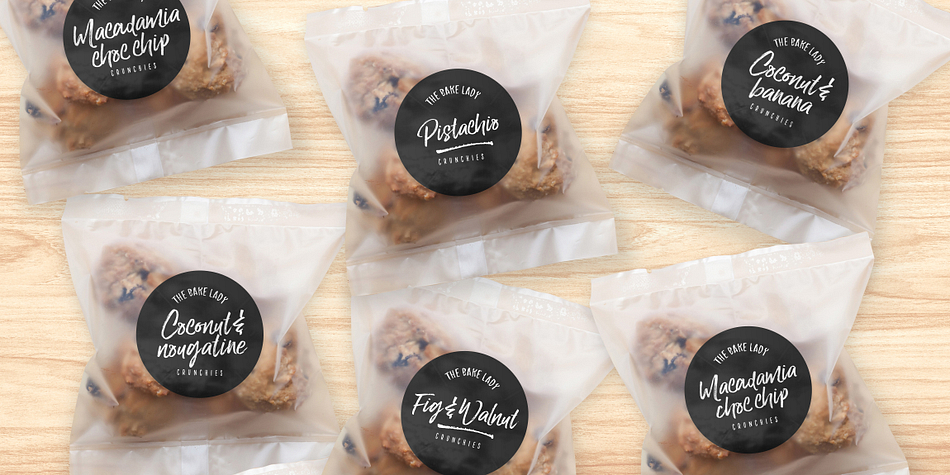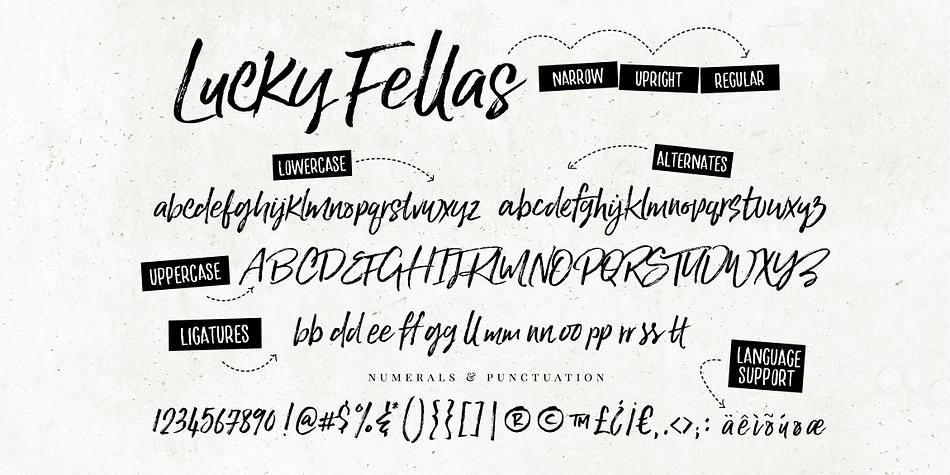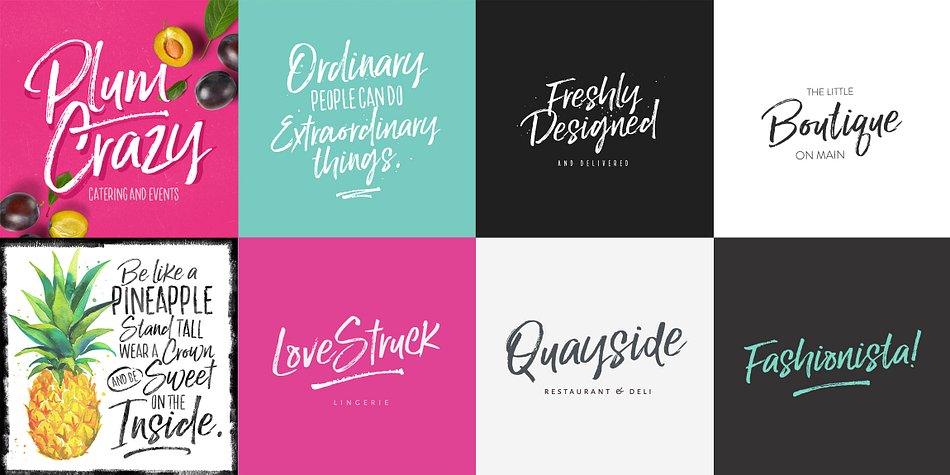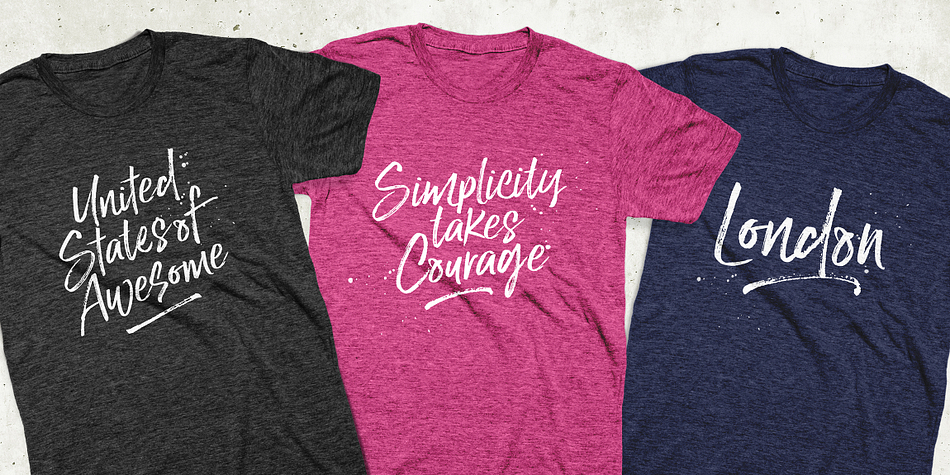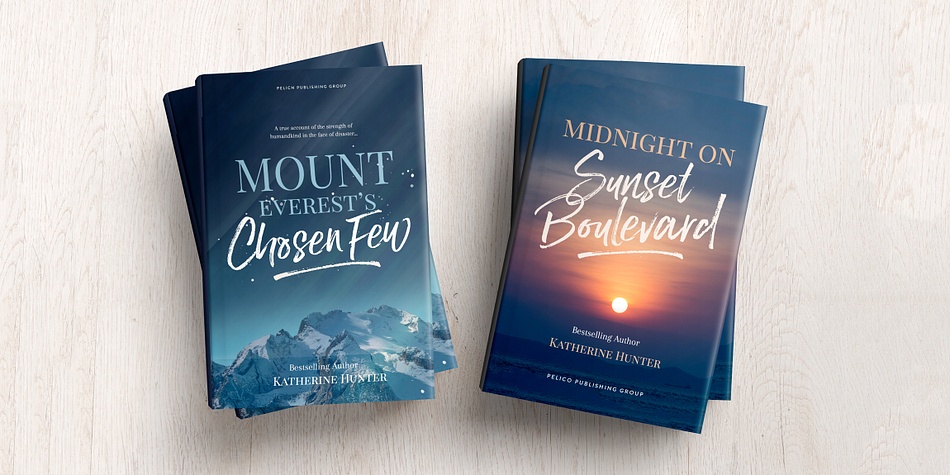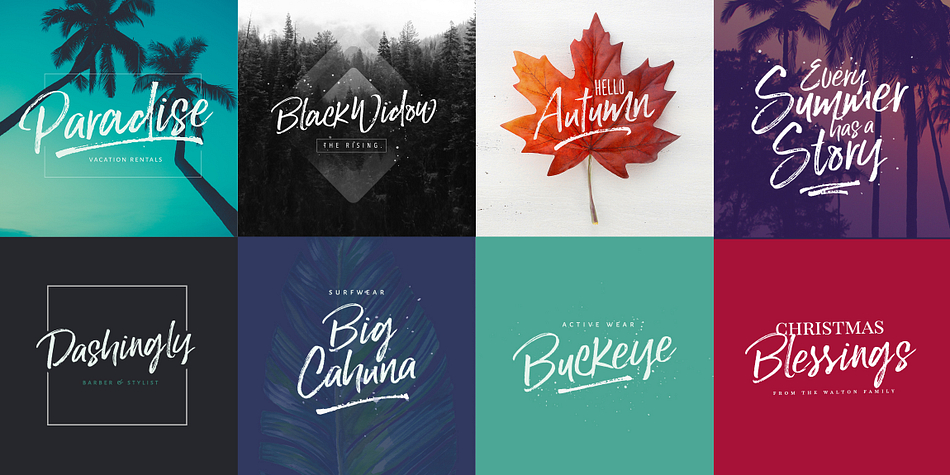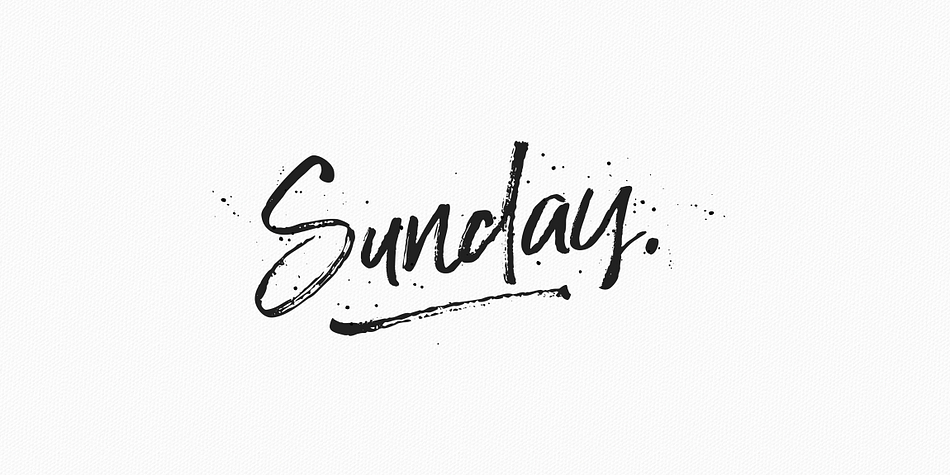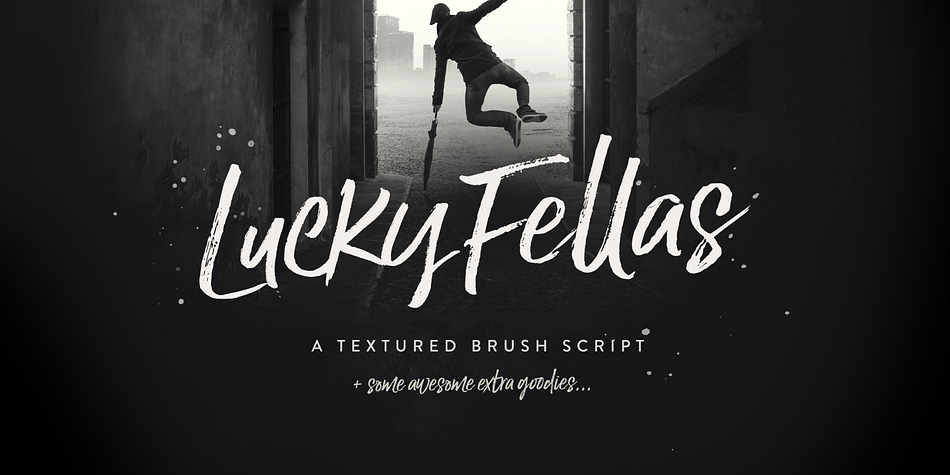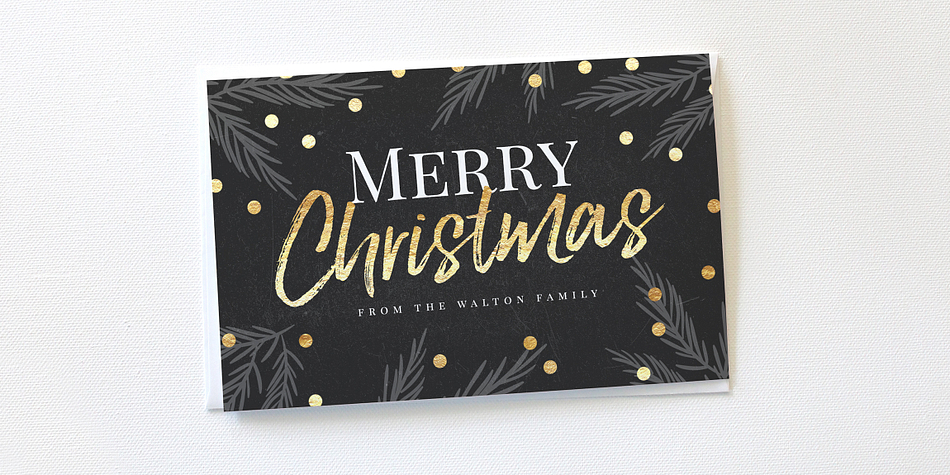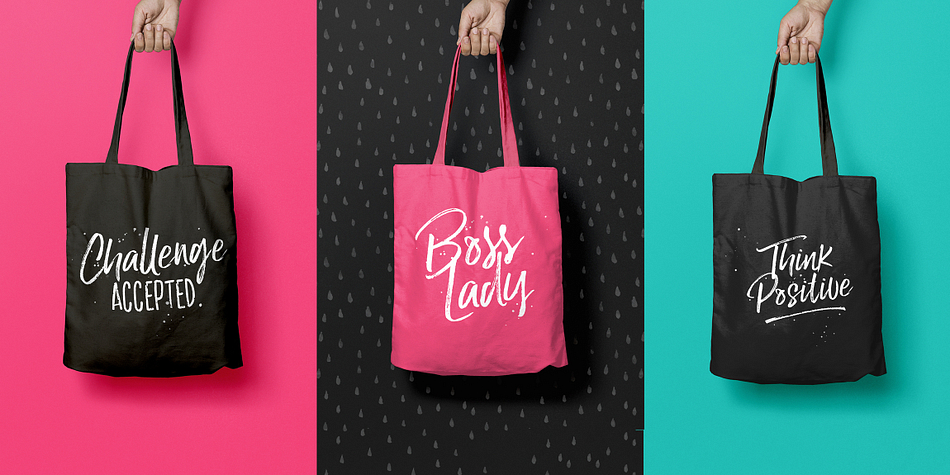
Designed by Nicky Laatz, Lucky Fellas is a dingbat, hand drawn and brush script font family. This typeface has five styles and was published by Nicky Laatz.
A rough-and-ready hand-brushed script, with edgy lines and awesome character!
It includes opentype features - stylistic alternates for the lowercase letters, and a comprehensive set of natural looking ligatures to add to the realistic nature of the typeface.
Lucky Fellas font family includes a complimentary textured titling sans serif font, and some super sexy swashes and splatters font to add some finishing touches to your designs.